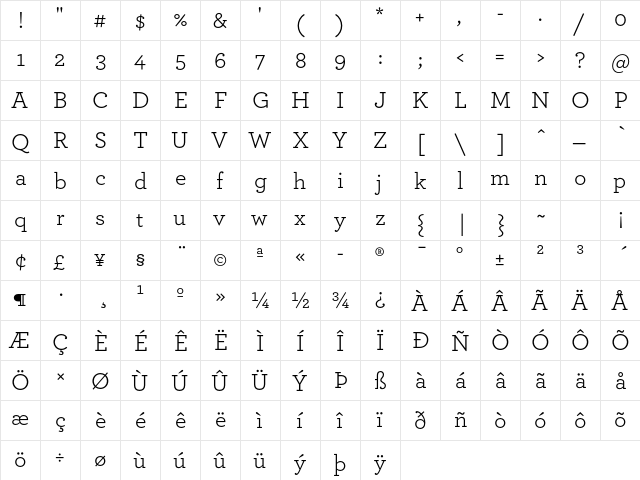
ArcherPro Book
Design Context for ArcherPro Typeface
ArcherPro takes a measured approach to typography — its balanced proportions and neutral character make it a reliable workhorse for both digital and print work.
Pro Tip: Pair ArcherPro with a font of contrasting weight or personality to build a more expressive typographic hierarchy.